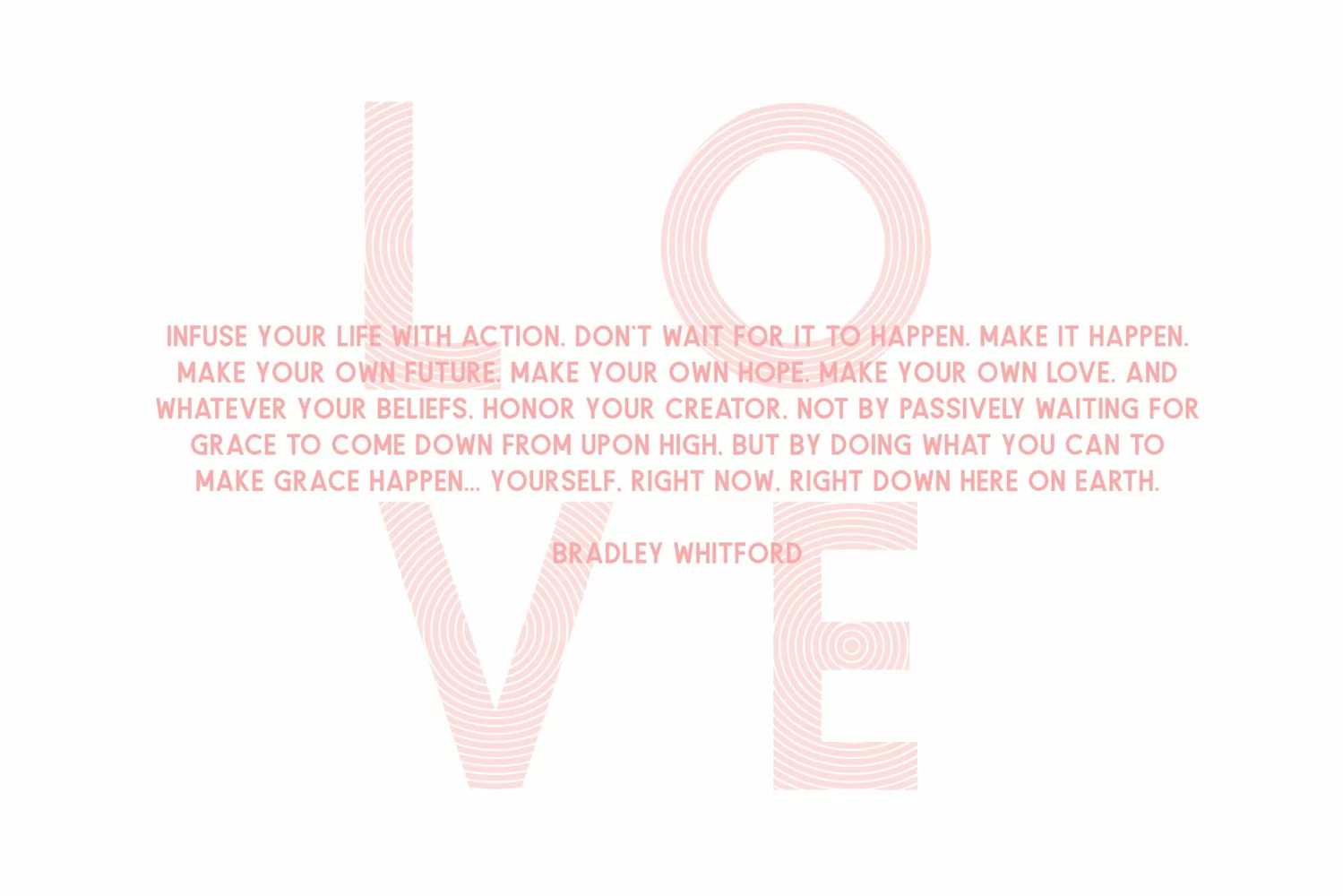
Texas | A Romantic Typeface
Introducing Nixmat Typeface - A Romantic Typeface and awesome character! With different style, it's perfect for logos, name card, magazine layouts, invitations, headers, or even large-scale artwork.